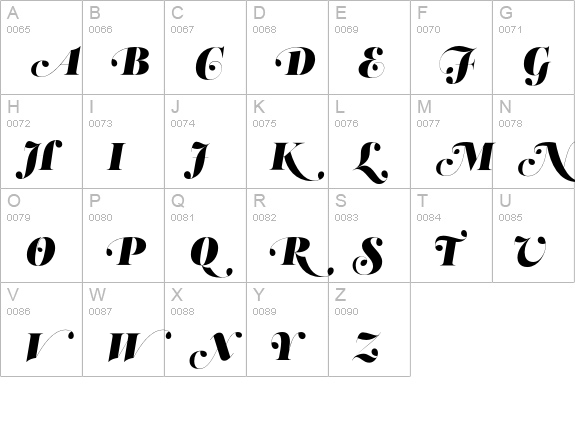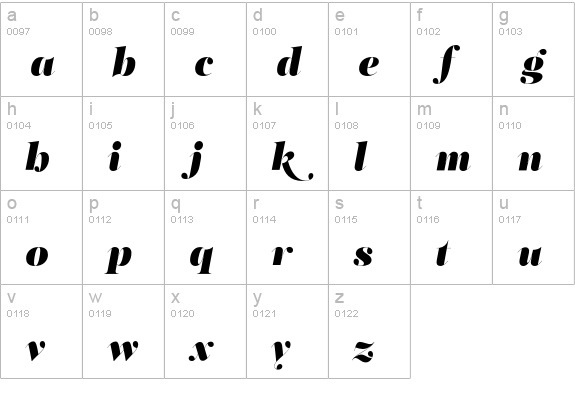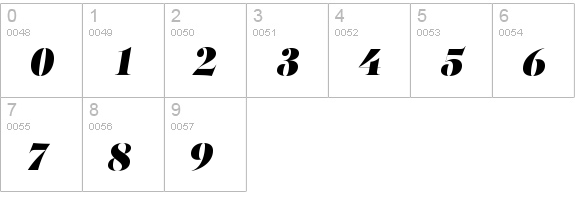
PFRegalSwashPro-UBlack Font Details
PFRegalSwashPro-UBlack is a stunning and elegant font that exudes sophistication and charm. Its bold and refined appearance makes it perfect for adding a touch of luxury to any design project. The intricate swashes and flourishes of this font add a touch of flair and personality, making it stand out from the crowd. Best of all, PFRegalSwashPro-UBlack is freely available to download at FontsMarket.com. This means you can easily access this premium font without any cost, allowing you to elevate your designs without breaking the bank. Whether you're working on invitations, branding, or editorial projects, PFRegalSwashPro-UBlack is sure to make a statement and leave a lasting impression. Elevate your designs with this exquisite font today!